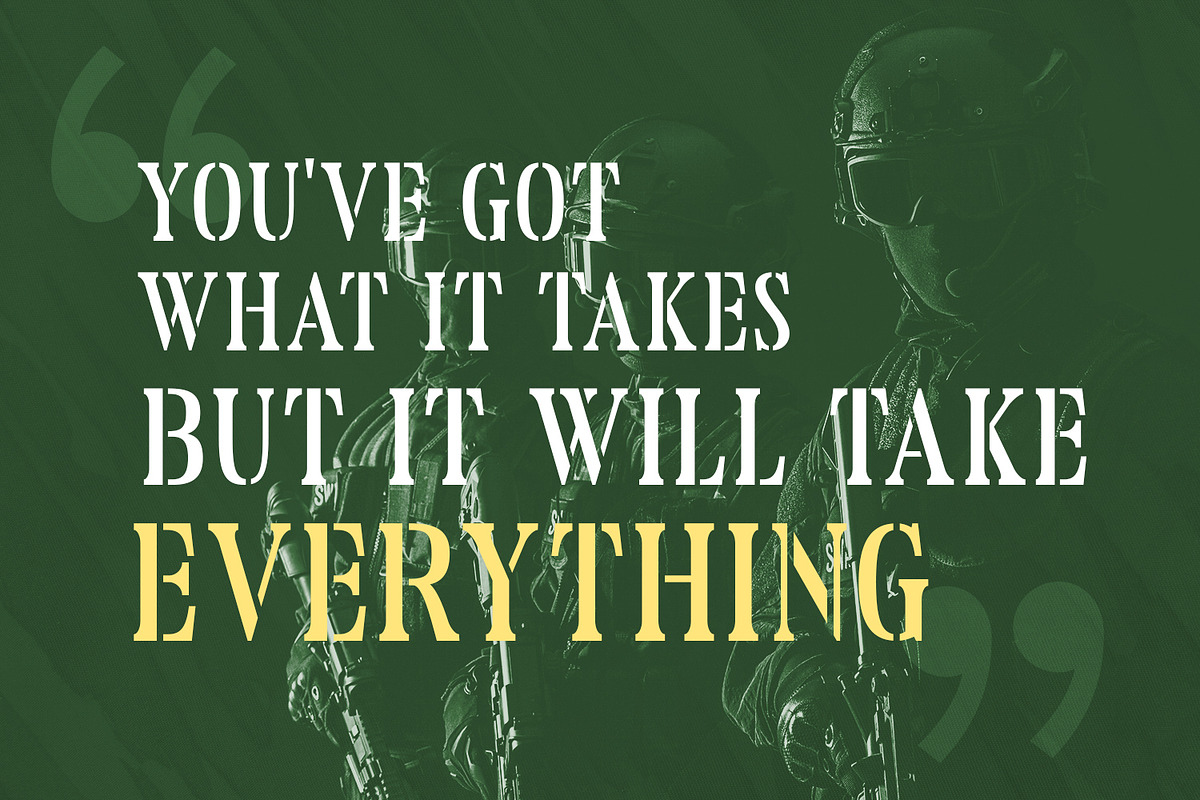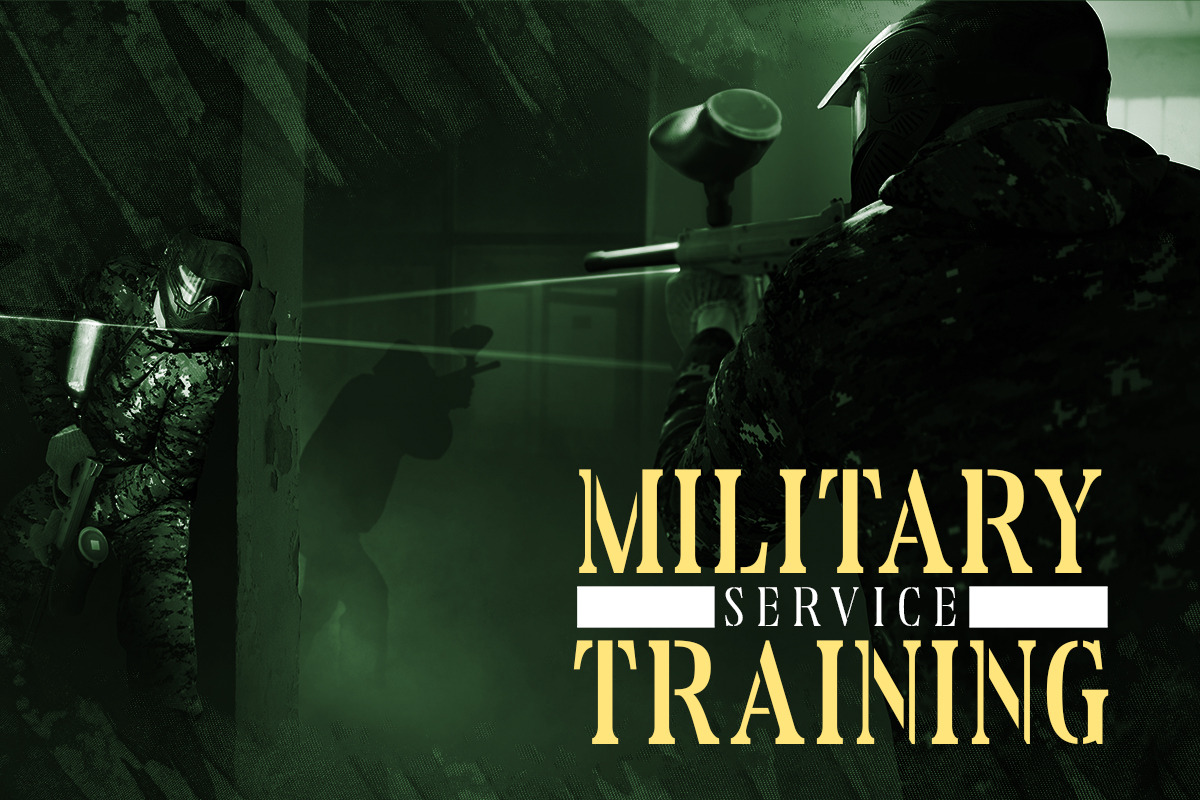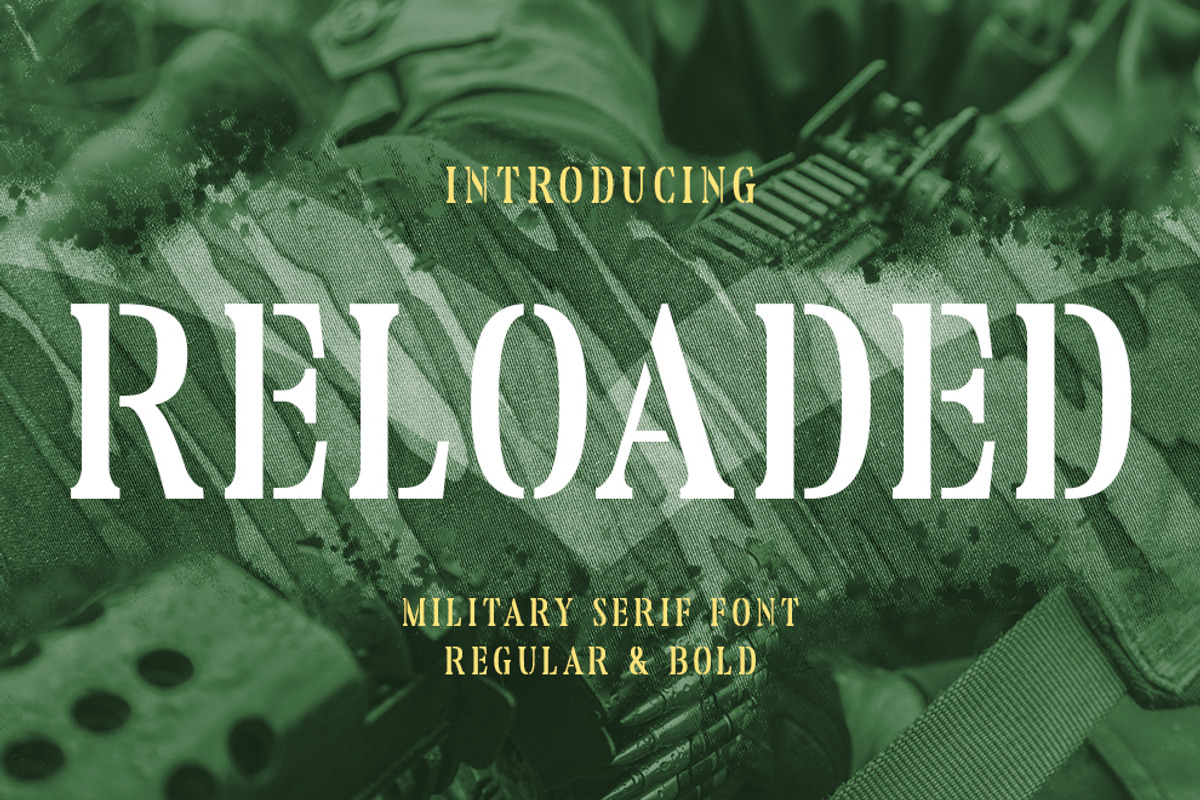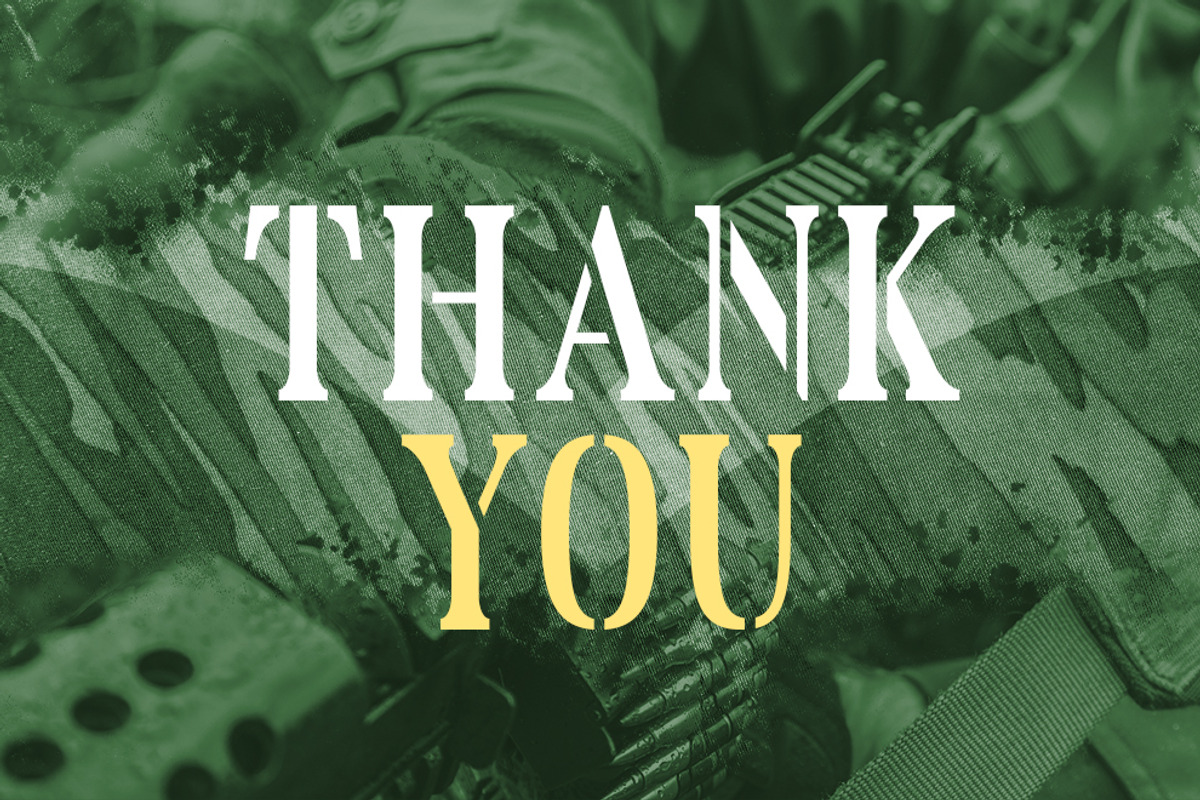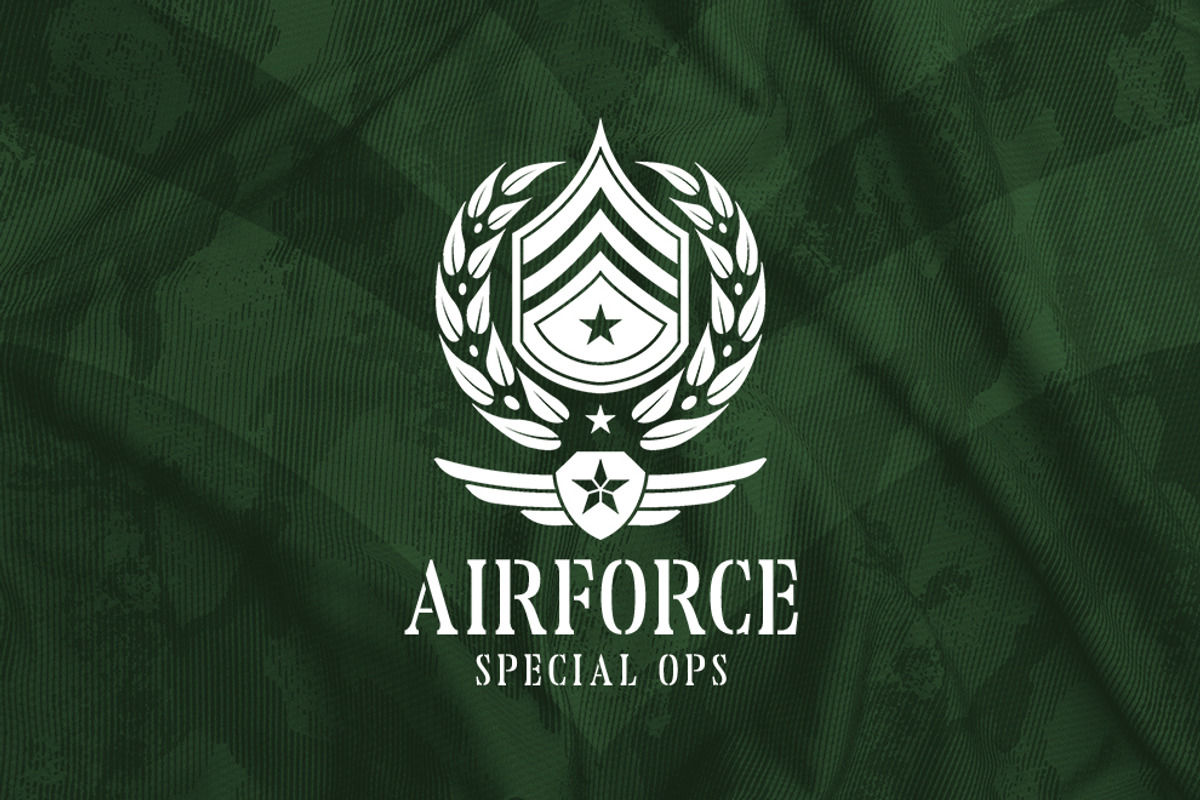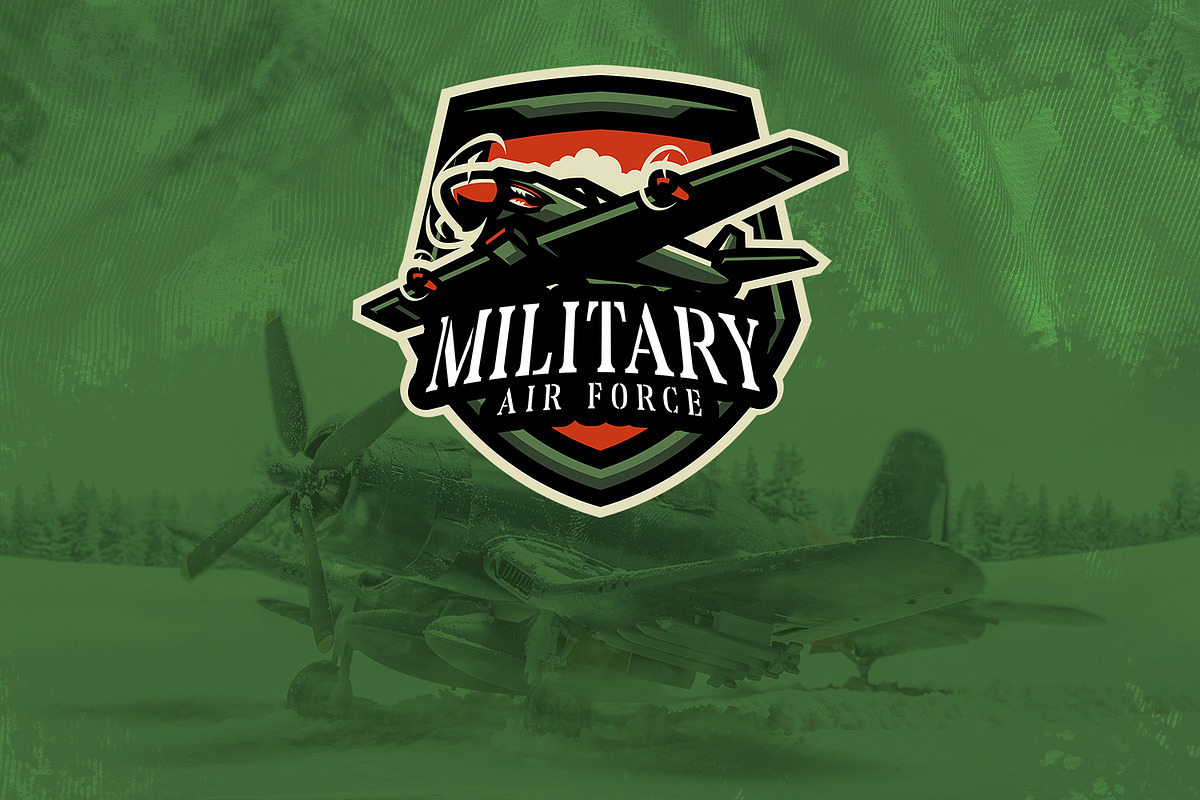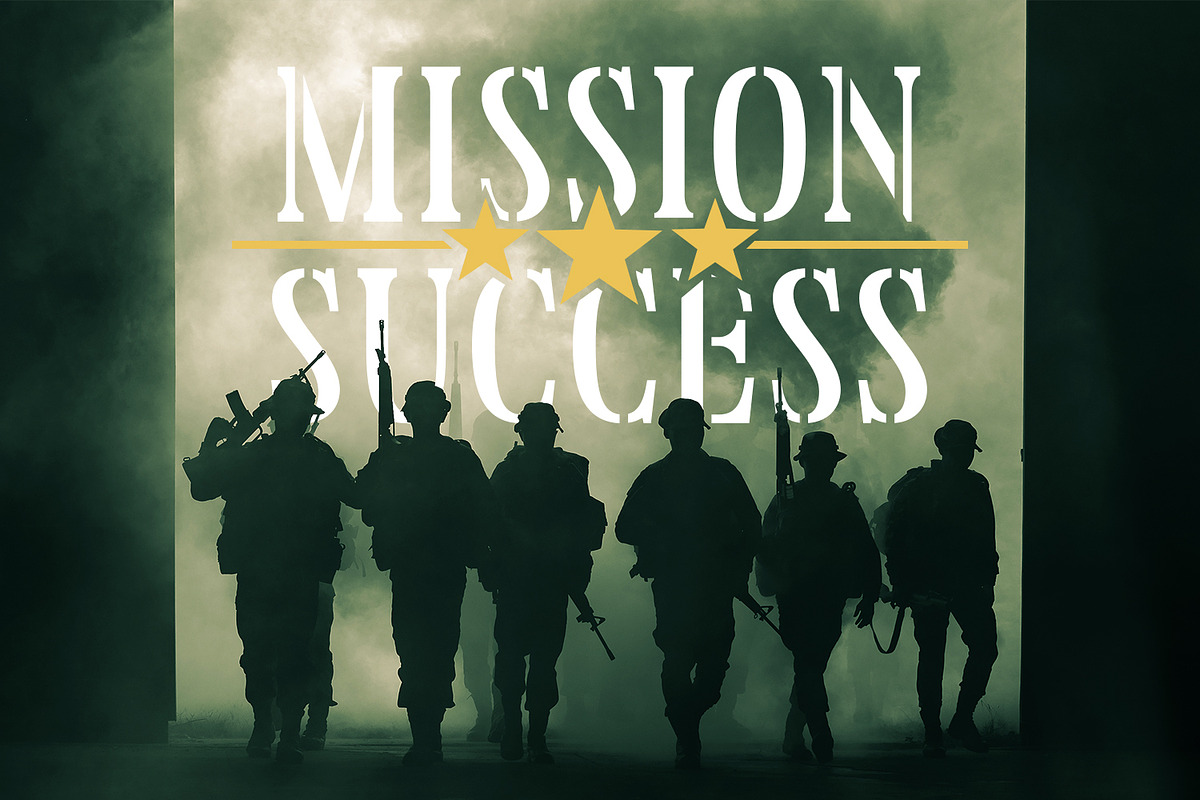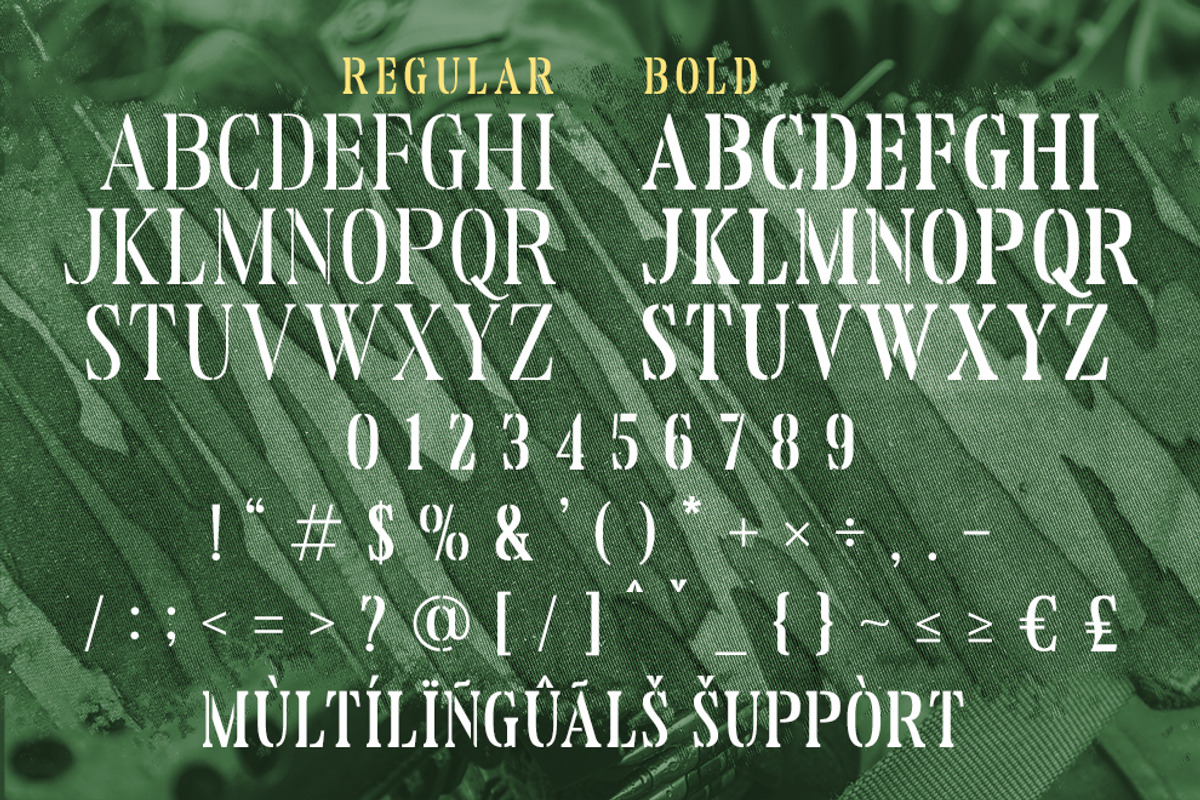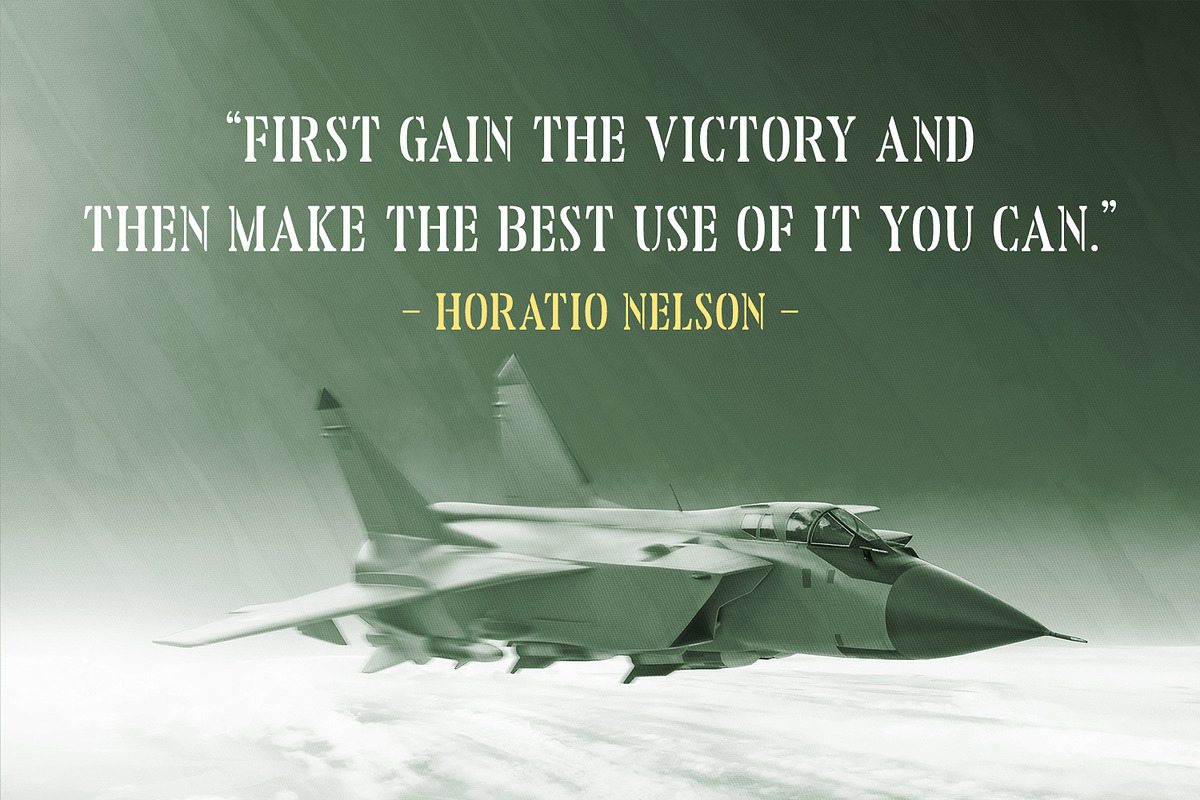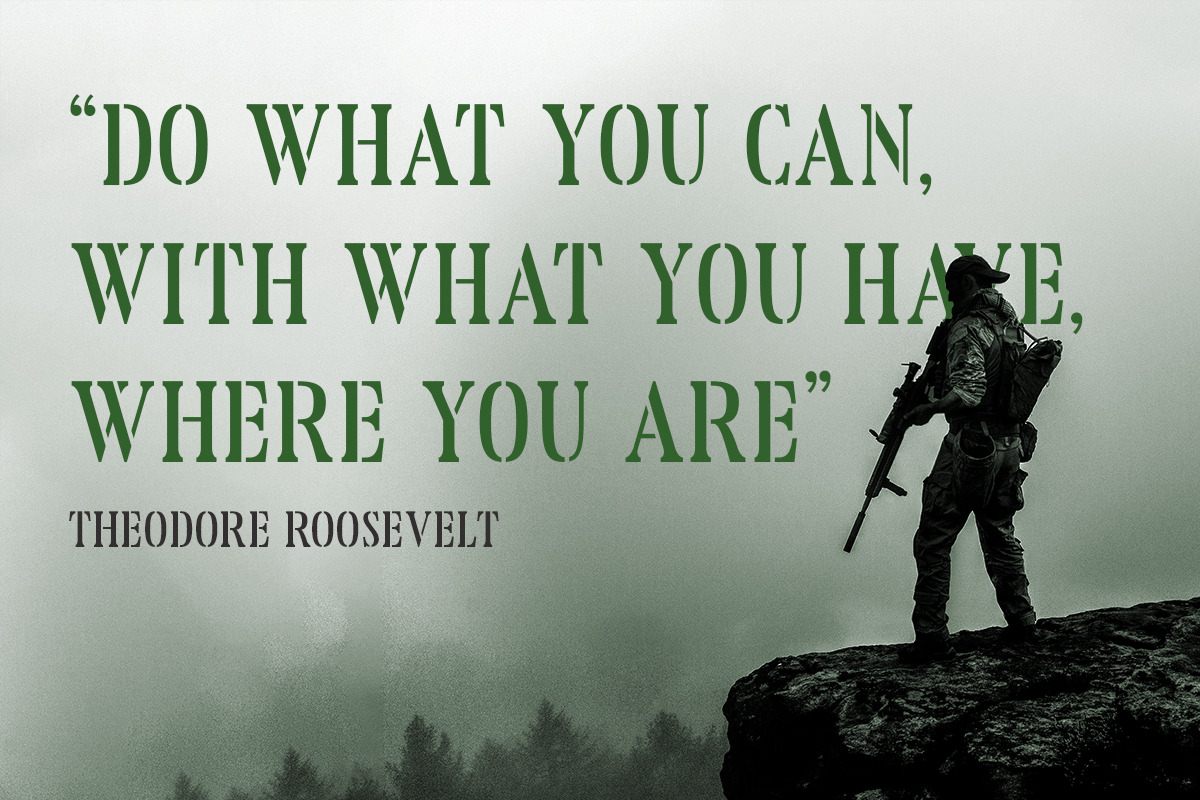
Reloaded - Military Serif Font
Reloaded - Military Serif Font, first conceptualize was inspired by the classic vintage military stencil design .
I wanted a typeface that could be a solid base for any military inspired project Reloaded Fonts can be used for wallpaper, pattern fills, web page background, surface textures. Perfect for making army posters , scrapbooking,invitation cards, stationary, gift wrap, packaging, buttons, pendants, holiday gifts, print on fabrics and so much more
- Multilingual Accent